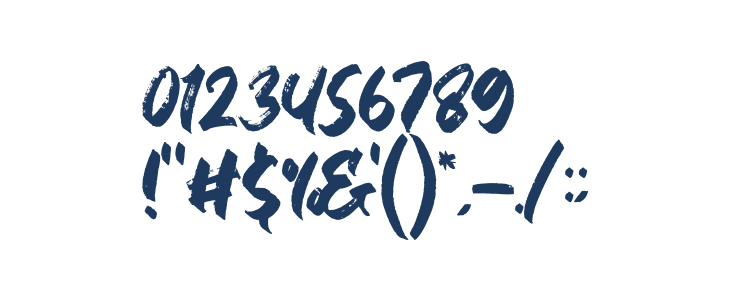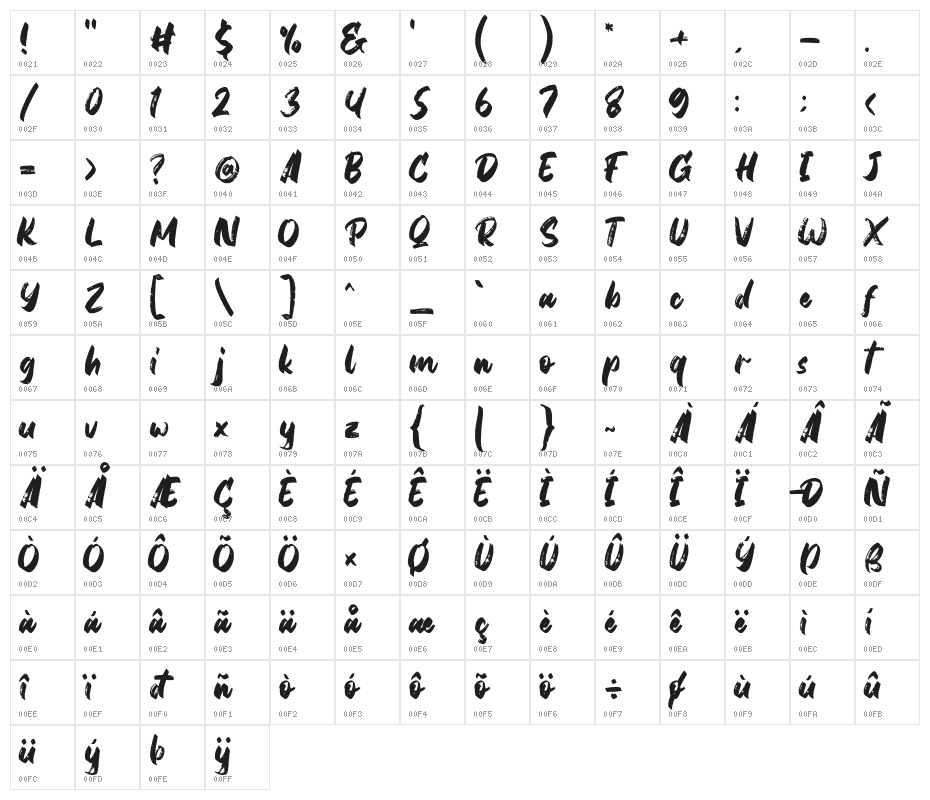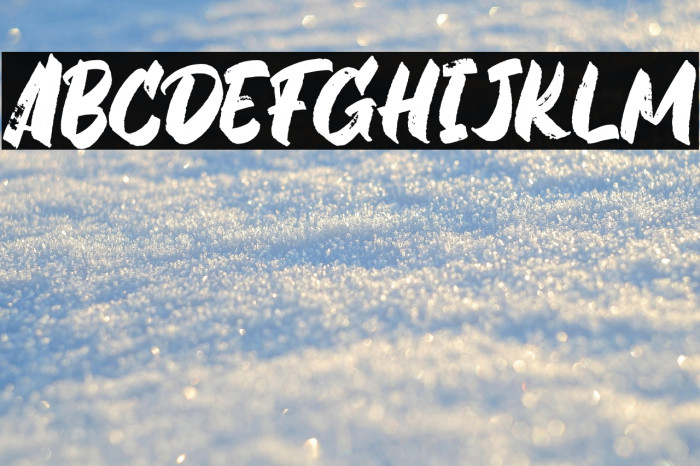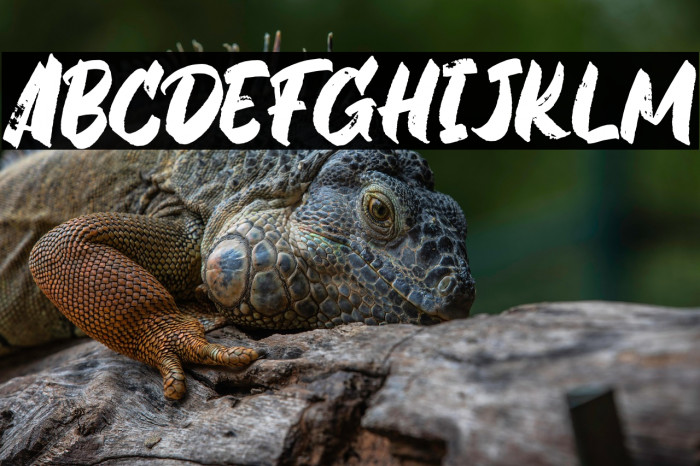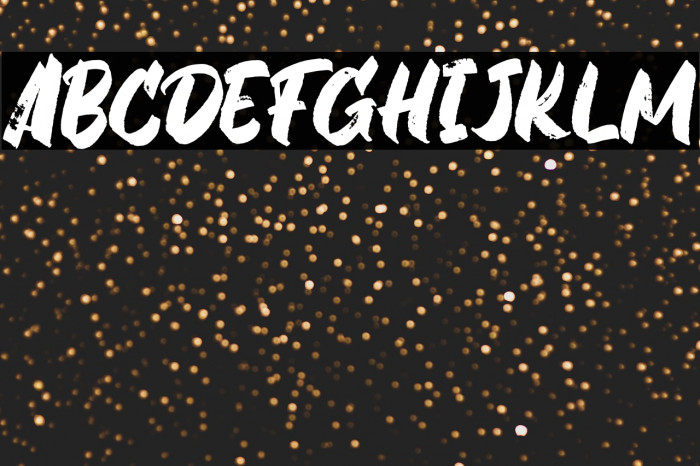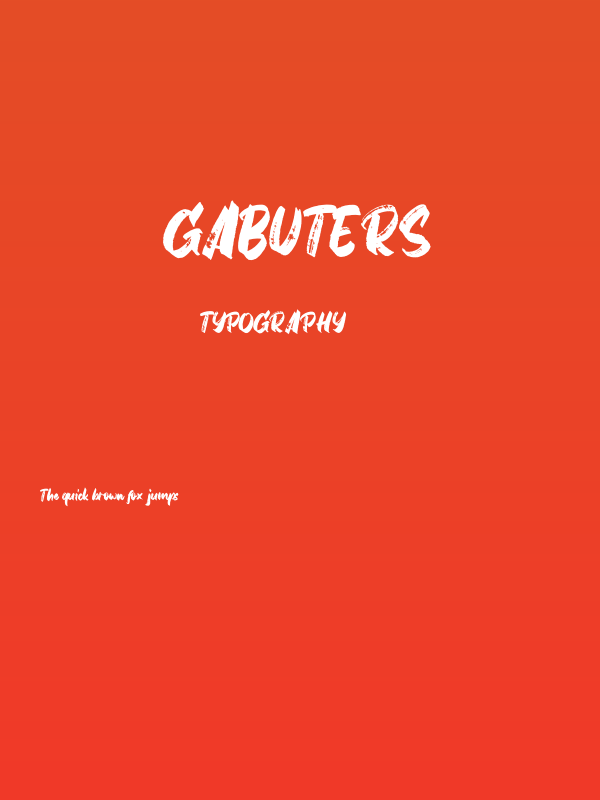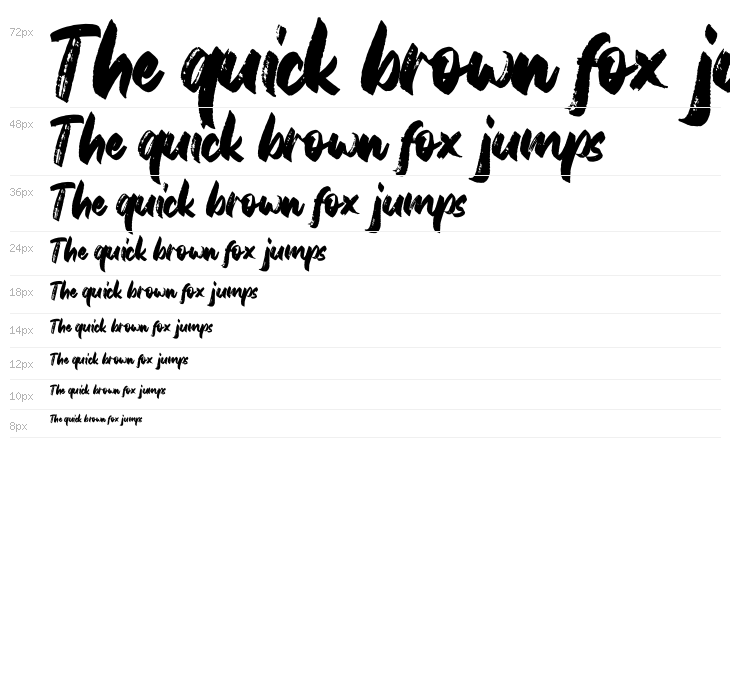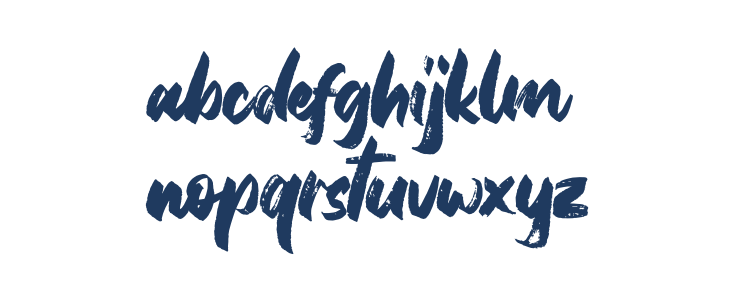
Gabuters Font
Gabuters Description
This font features a bold, expressive style with a brush-like texture that gives it a dynamic and energetic appearance. The strokes are uneven, adding a handcrafted feel, while the letters maintain a consistent height, ensuring readability. The uppercase and lowercase letters are well-balanced, with a slightly slanted orientation that enhances the casual and informal vibe. The numbers and special characters are designed to match the overall aesthetic, making them suitable for creative projects. The font's rough edges and varying stroke widths contribute to its artistic and spontaneous look.
| Use Case | Logos, Headlines, Posters |
| Proposed Projects | Ideal for branding, posters, social media graphics, and any project needing a bold, artistic touch. |